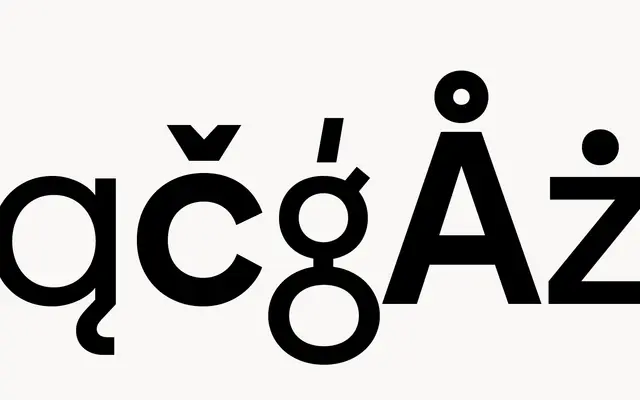
MG12
atipo foundry · Raul Garcia del Pomar, Ismael Gonzalez · 2020
A humanist grotesque from atipo across three weights with italics, with notably broad Latin language coverage for editorial and identity systems.
A humanist grotesque by Raul Garcia del Pomar and Ismael Gonzalez at atipo foundry, with three weights from Regular to Bold and matching italics. MG12 carries tabular figures, fractions, superiors and ordinals in the OpenType layer, and a very broad Latin language set spanning European, indigenous American, Pacific and constructed languages. Useful where a contemporary humanist sans has to operate across many language scripts.
A humanist grotesque drawn for text and identity, with three weights and italics. The MG12 name nods to the systemic, almost technical character of the family, which carries wide Latin language support across European, indigenous and constructed scripts.